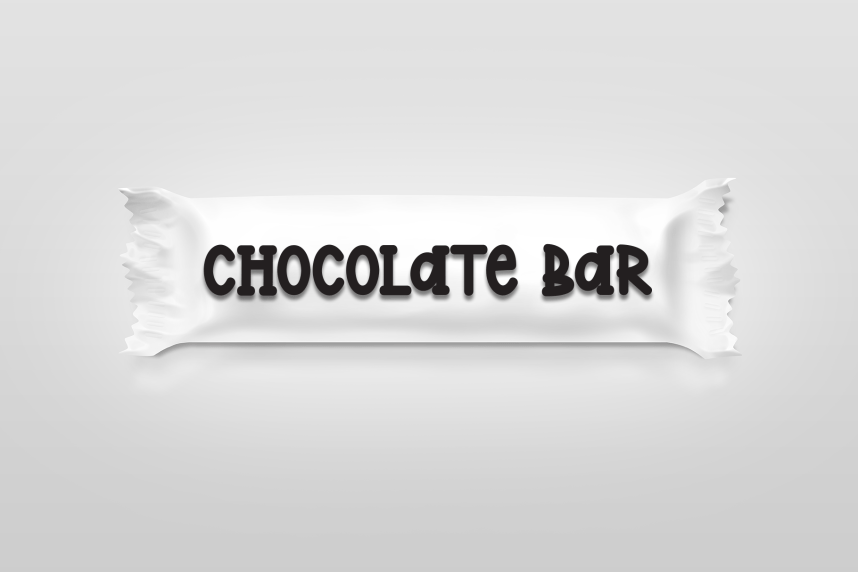
Sometime – Playful And Unique Font
Sometime – Playful And Unique Font is a sweet and friendly handwritten display font. Cute and fun, this font is ideal for writing wedding invitations, cards, or any other design that might need a playful touch!